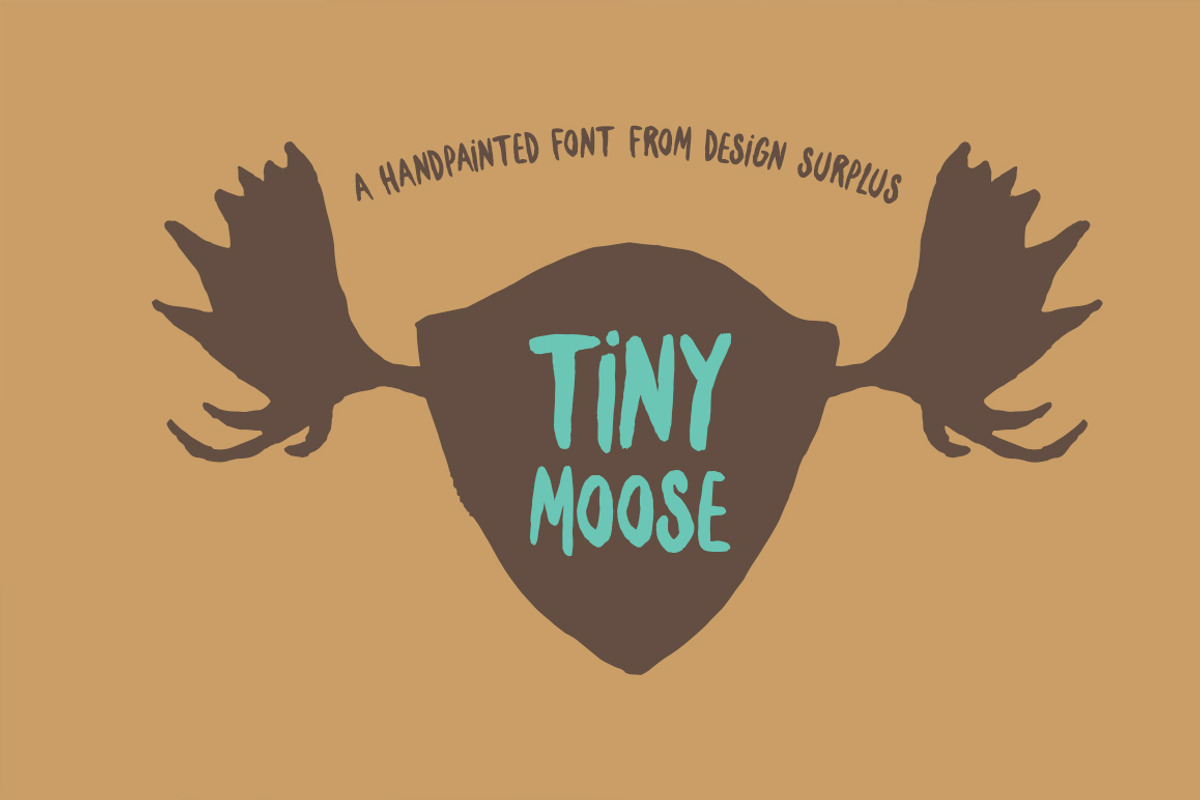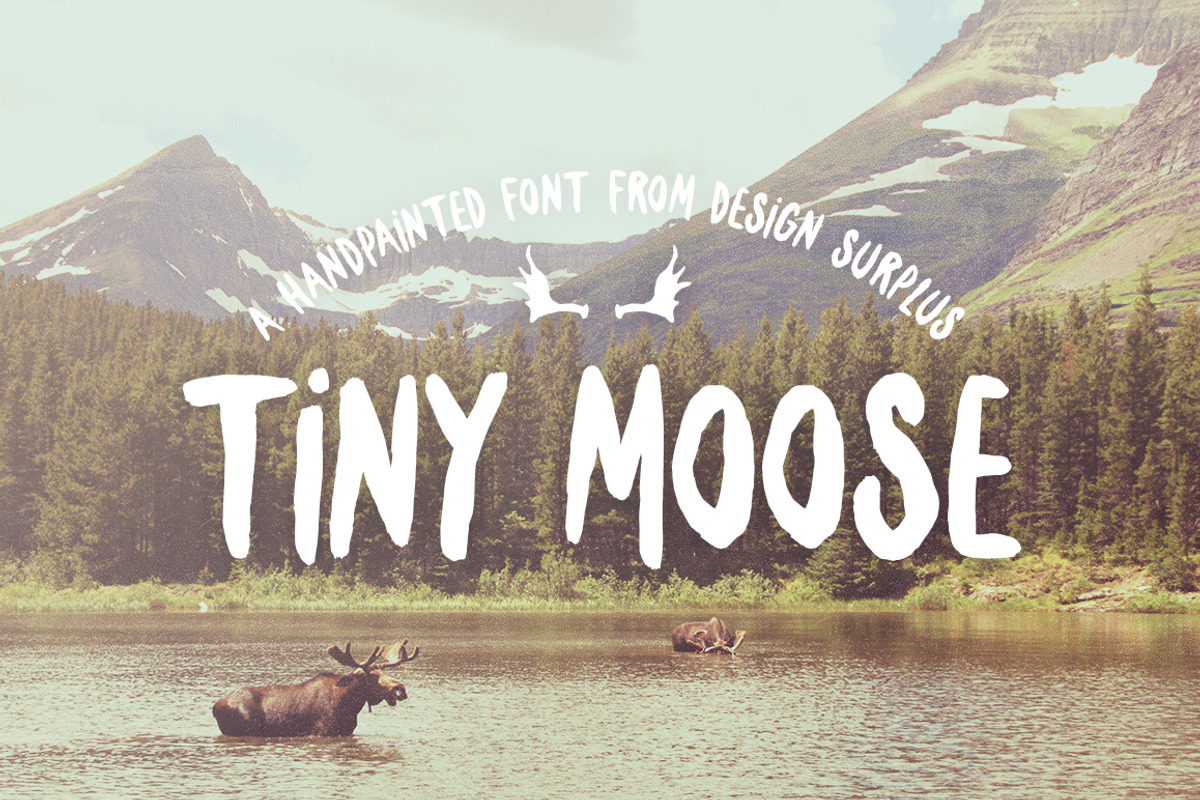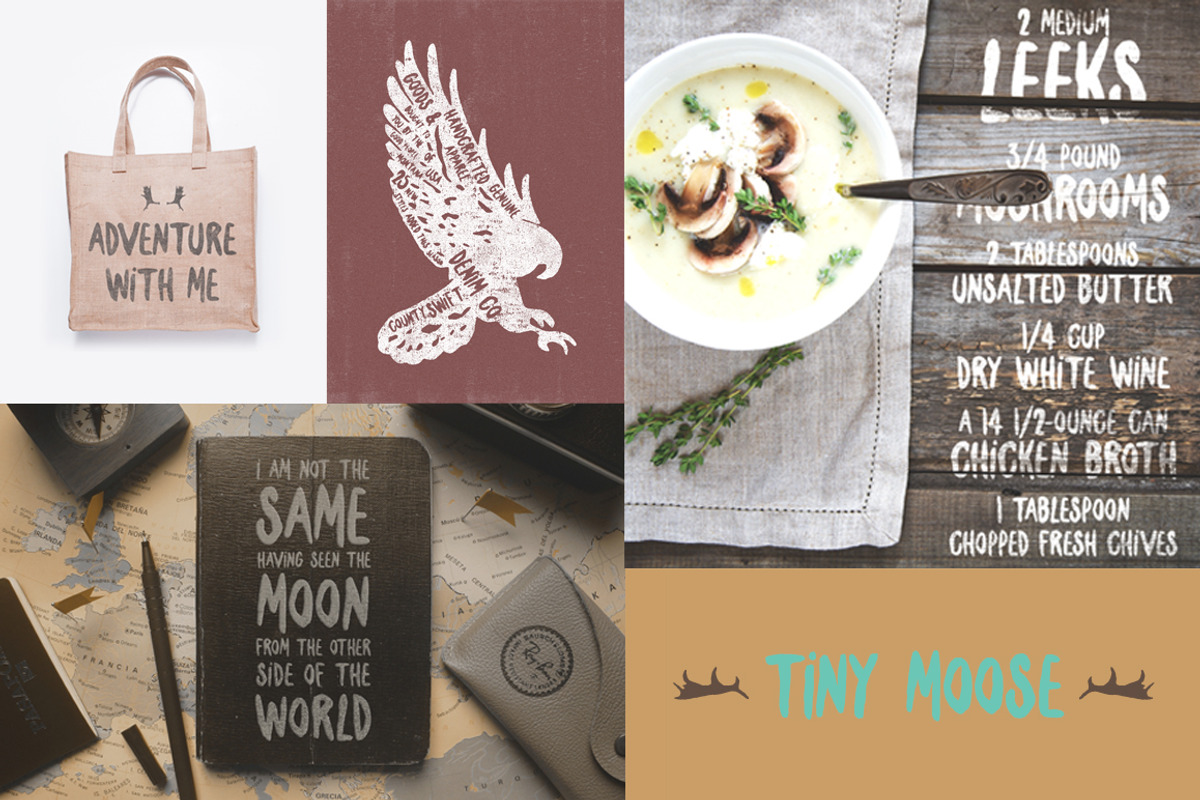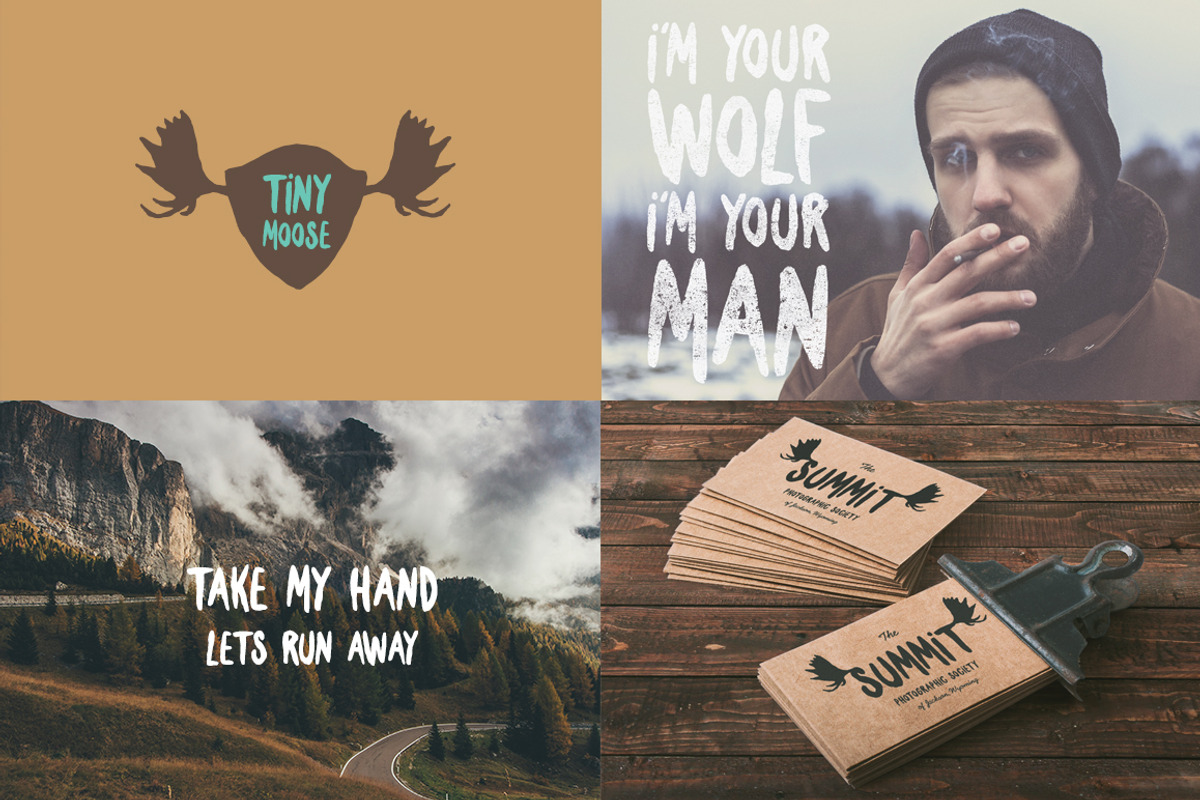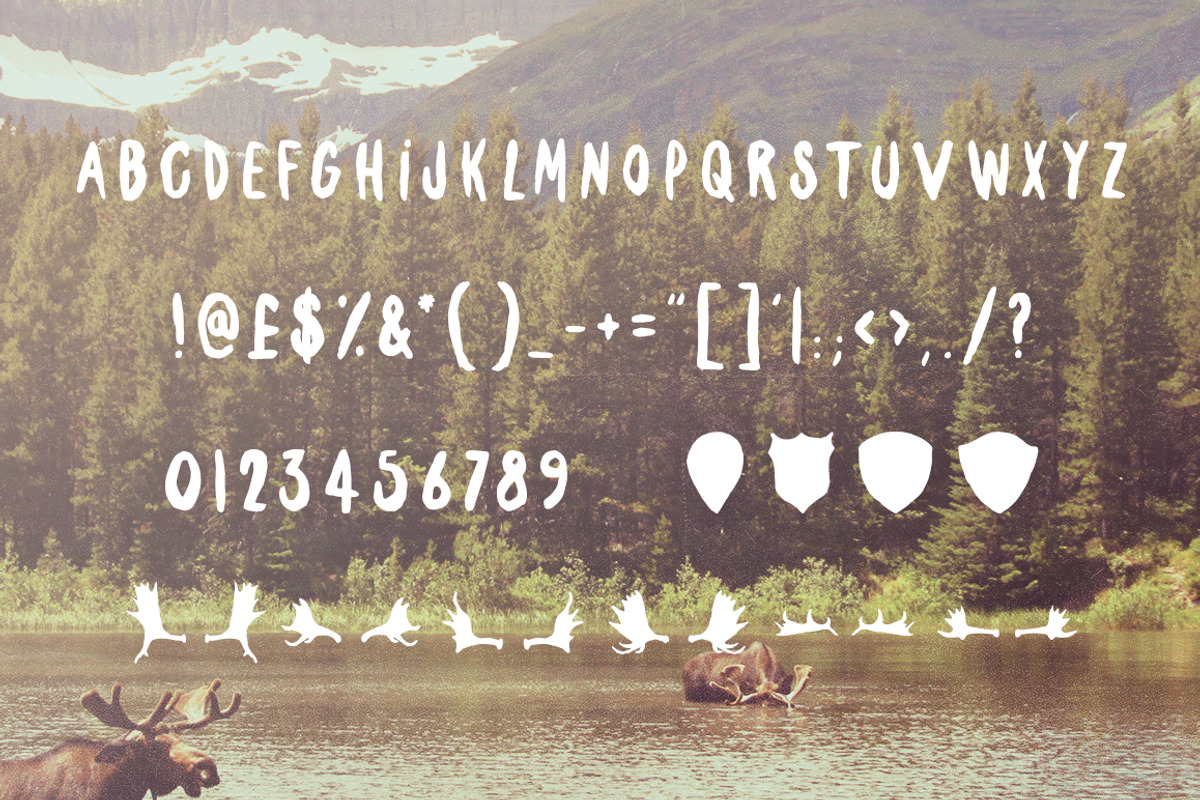
Tiny Moose Font
Tiny Moose Font by Design Surplus is a font selected for branding, posters, packaging, typography.
Why Tiny Moose Font is worth a look
Tiny Moose Font by Design Surplus fits naturally into Branding, posters, packaging, typography.